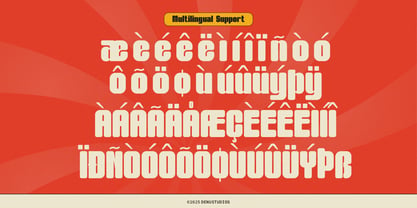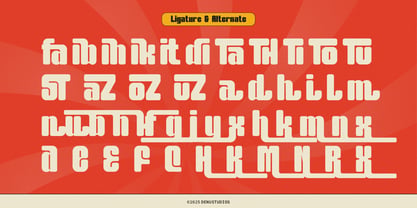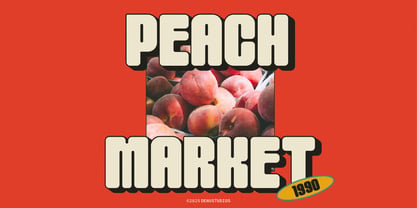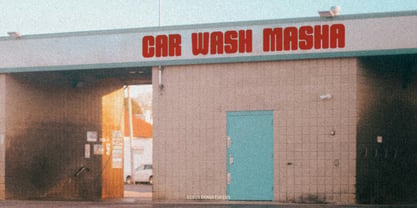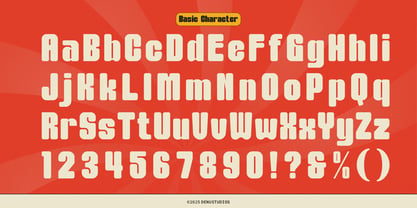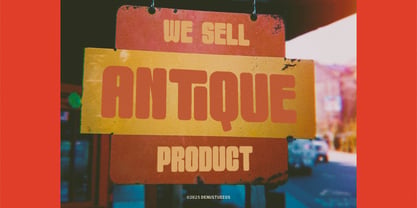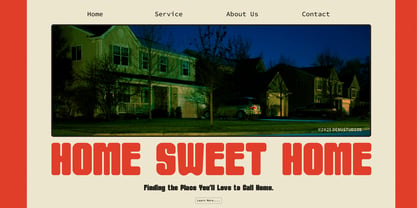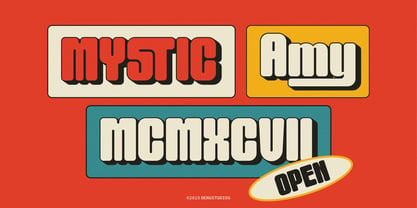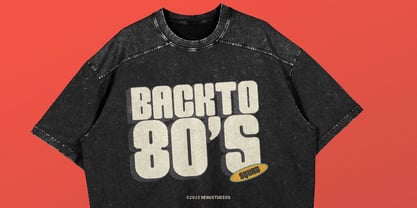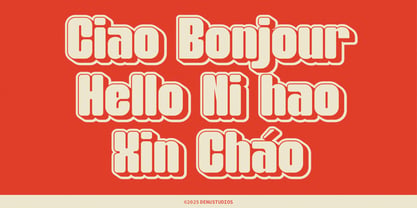
Gulkit Miski
The Gulkit Miski Font Family was designed by Dede Nugraha and published by Denustudio. Gulkit Miski contains 2 styles and family package options. More about this family
Gulkit Miski | Retro Bold Sans Serif, from Denustudios, suitable for any projects such as: logos, branding projects, homeware designs, product packaging, mugs, quotes, posters, shopping bags, t-shirts, book covers, name card, invitation cards, greeting cards, label, photography, watermark, special events, and all your other lovely projects that need a Retro Bold Sans Serif taste.
• Regular and Italic
• Standard glyphs
• Alternate and Ligature
• Fonts include multilingual support